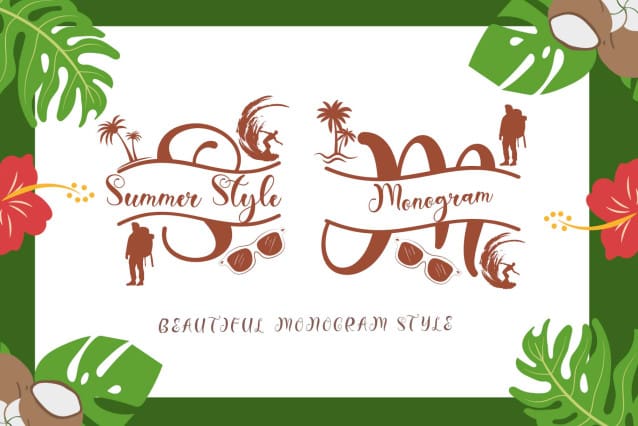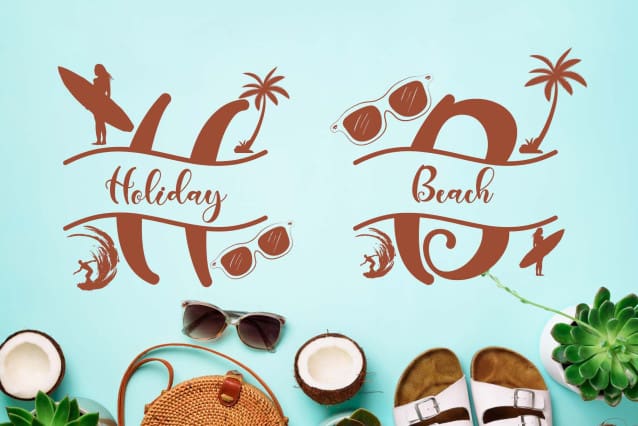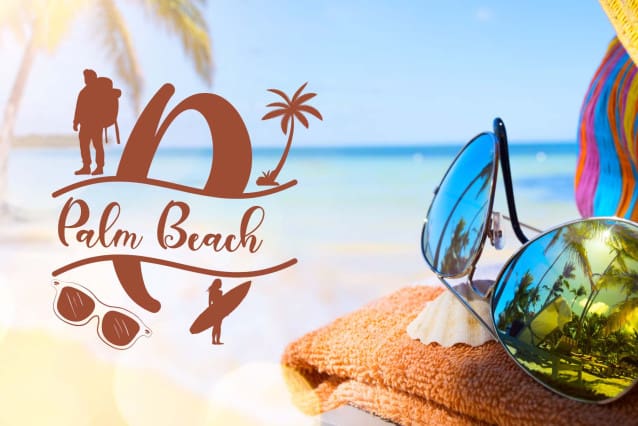
Summer Style Monogram Font
Summer Style Monogram Font is a unique and elegant monogram font. This font is equipped with monograms, uppercase, lowercase, ligatures, numerals, punctuations and multilingual support. Very suitable for banners, branding, stickers, summer, spring, holidays, vacations and others.